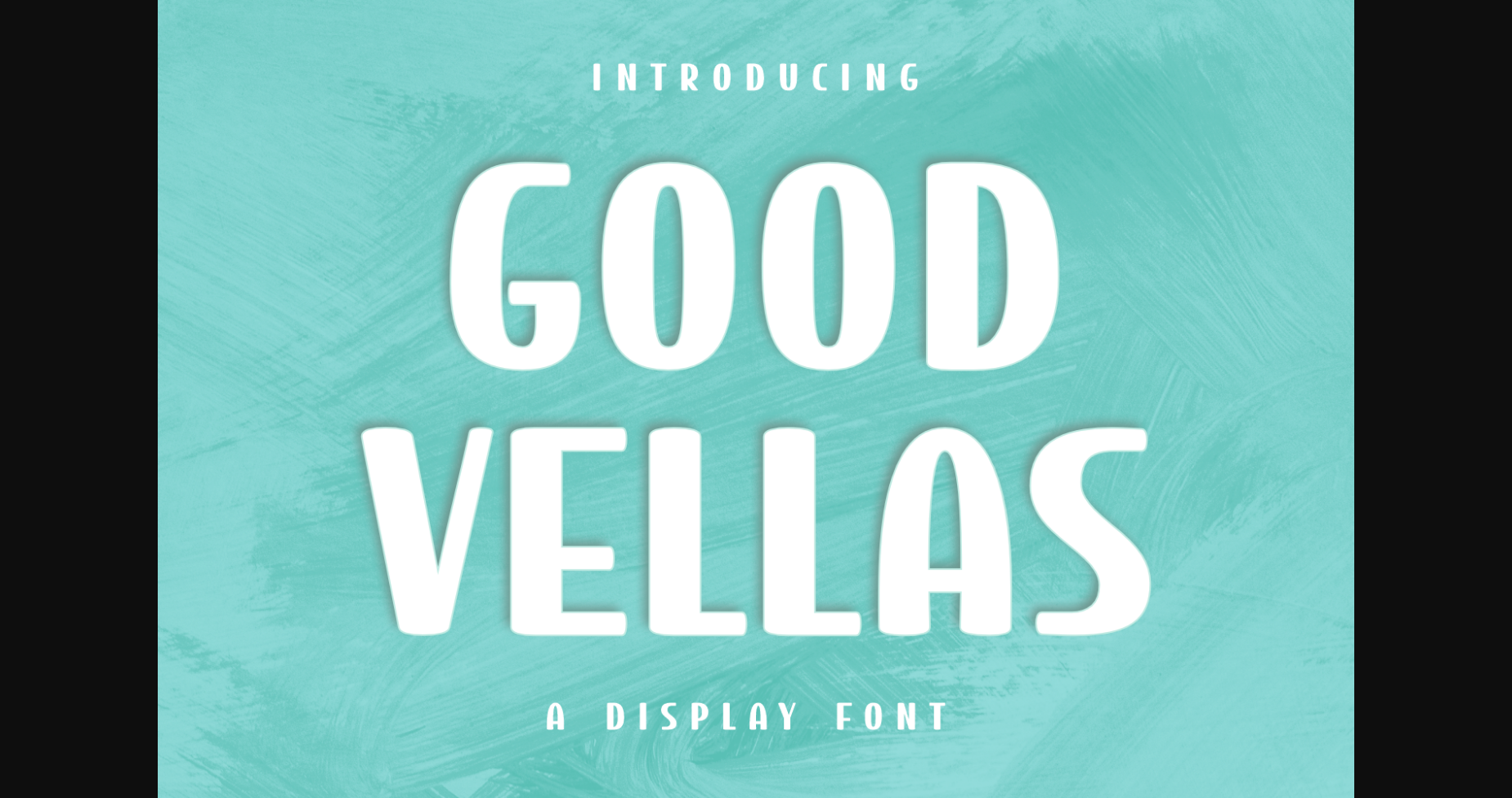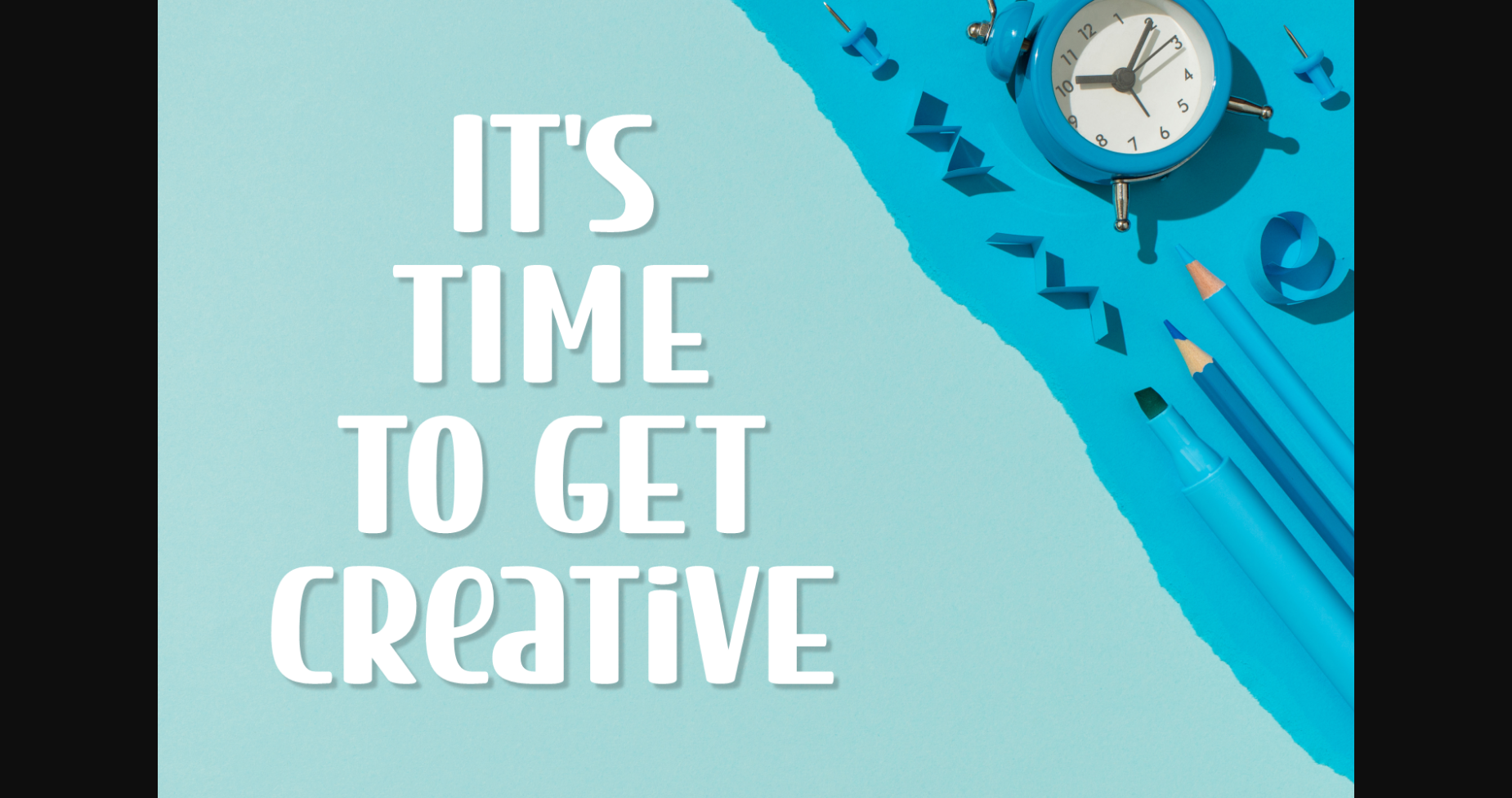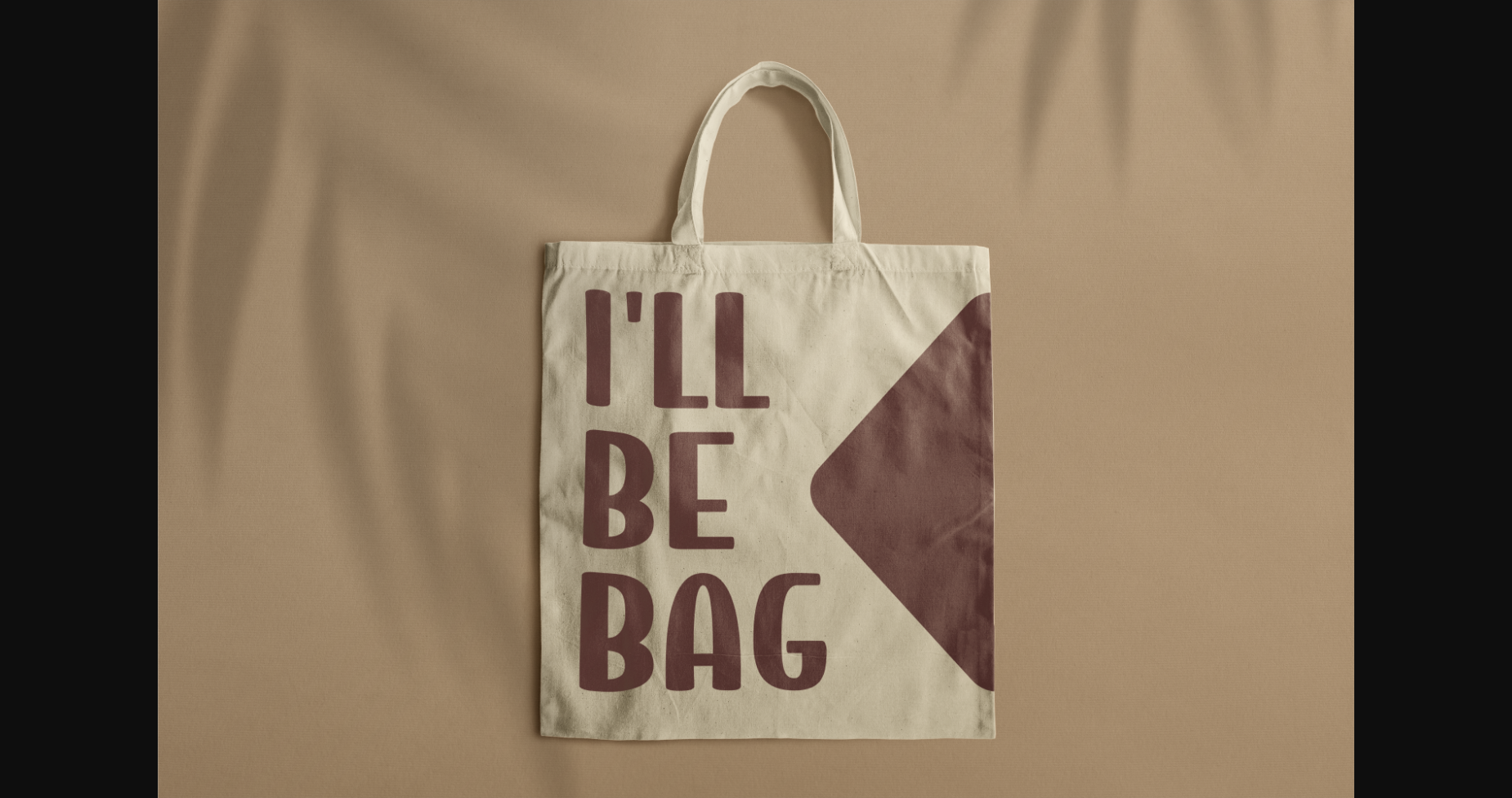
About Good Vellas Font
Good Vellas is a clean and modern sans-serif font that’s designed to give your projects a fresh and contemporary look. Its minimalist design and sleek lines create a sense of simplicity and sophistication, making it perfect for branding, editorial design, and other applications where clarity and legibility are essential.